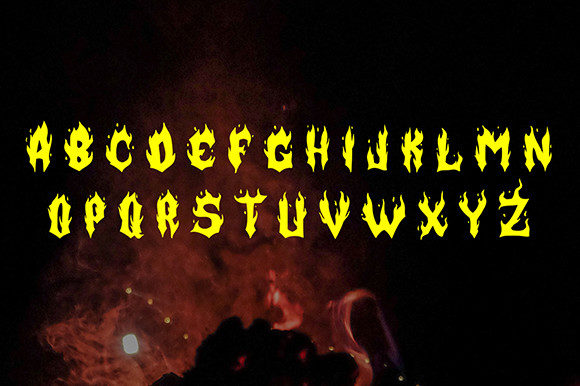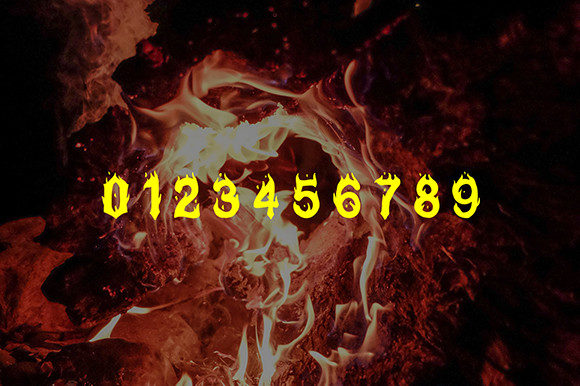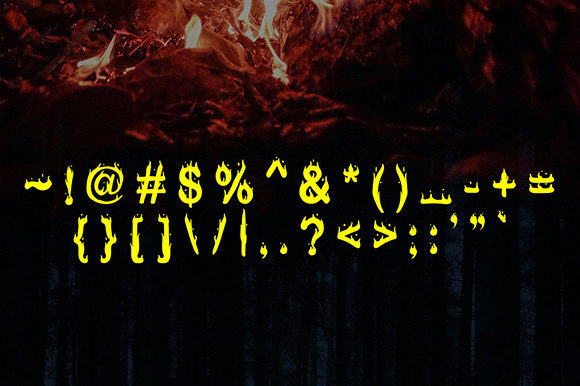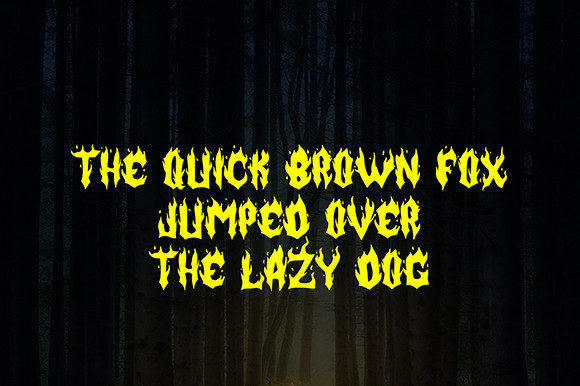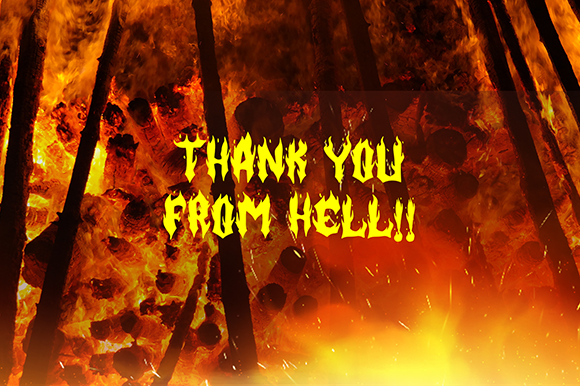
Introduction to Hellbone Font
Imagine you’re working on a creative project late at night, surrounded by dim lighting and an eerie atmosphere. Your design needs that perfect font to capture the essence of your idea, but nothing seems to fit. That’s where the Hellbone Font comes in – a dark and mysterious font that’s sure to send shivers down your spine.
As designers, we’re always on the lookout for unique design resources that can elevate our work and give it that extra oomph. The Hellbone Font is a high-quality, free download that offers a transparent background, making it perfect for designers who want to add a touch of darkness to their designs.
This creative font is a valuable addition to any designer’s toolkit, offering endless possibilities for creative projects that require a spooky or eerie vibe. Whether you’re designing a horror movie poster or a Halloween-themed website, the Hellbone Font is sure to be a game-changer.
Key Features of Hellbone Font
- Unique, high-quality font design suitable for creative projects and designs with a dark, edgy aesthetic.
- Transparent background allows for easy customization and layering in graphic design software.
- High-resolution font files ensure crisp, clear text even at large sizes, making it perfect for posters, billboards, and other large-format designs.
- Designed with a bold, gothic style that adds a touch of elegance and sophistication to any design, from logos to typography-based art.
Honest Review: Hellbone Font
I recently had the chance to work with the Hellbone Font, and I’m excited to share my thoughts with you. This font is a design resource that can add a unique touch to any creative project.
What works well: ✨ The Hellbone Font is available for free download, which is a huge plus for designers on a budget. The transparent background makes it easy to customize and integrate into your designs. The high-quality design of the font is evident, and it’s perfect for creating a bold and edgy look.
However, there are some limitations: ⚠️ The Hellbone Font may not be suitable for all design projects, especially those that require a more subtle or elegant look. Additionally, the font may not be as versatile as some other options, but for the right project, it’s a great choice.
Overall, I’m impressed with the Hellbone Font, and I think it’s a valuable addition to any designer’s toolkit. It’s a great resource for designers who want to add a unique touch to their creative projects.
To get the most out of the Hellbone Font, use it in conjunction with other design elements, such as images or graphics. Experiment with different font sizes and styles to create a visually appealing design. Also, make sure to use the font in a way that complements the overall design, rather than overpowering it.
The Hellbone Font is commonly used in creative projects, such as social media graphics, posters, and flyers. It’s also used in design resources, such as logos and icons. Additionally, the font can be used in presentations and documents to add a touch of creativity and style.